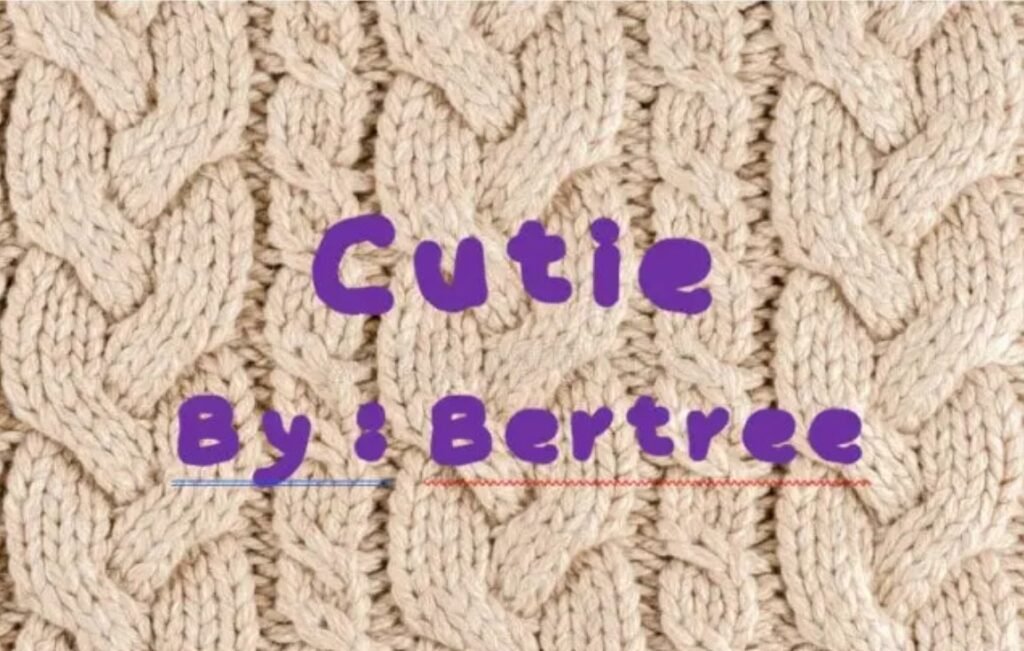
What is the Cutie Font?
The Cutie font, also known as cutie pie font, is a flowing script typeface with a relaxed look. It has a warm and friendly appeal because it tries to reproduce natural handwriting. It is most appropriate for projects meant to invoke a personal touch and warmth.
There are various offerings of the Cutie font, and each of them has its staunch supporters:
Cutie Patootie: Designed by Vanessa Bays, this version comes in three styles—Regular, Hollow, and Skinny—and all are great for different design applications.
Cutie by Bernadette Saiburju: It is a lovely handwritten script created for personal use that is ideal for enhancing the whimsical side of your designs.
Features of the Cutie Font
The Cutie Kitty font `s most liked features among designers are:
- Its design emulates natural handwriting, adding a personal touch that makes it feel as if someone wrote it by hand.
- With different versions like Regular, Hollow, and Skinny, you can opt for the Cutie Kitty font that best aligns with the tone and purpose of your project.
- From graphics design to print, the font is flexible and can be used in various applications.
- Language Support: Some versions of the Cutie font support multiple languages, enhancing their utility in diverse projects. ​
Applications of the Cutie Font
The Cutie patootie font is versatile and can be used across various design contexts:​
- Branding and Logos: Its friendly and approachable style makes it ideal for brands aiming to establish a personal connection with their audience.​
- Invitations and Greeting Cards: Perfect for adding a heartfelt touch to wedding invitations, birthday cards, and other personal correspondence.​
- Social Media Graphics: Enhance your posts with a handwritten flair that captures attention and conveys authenticity.​
- Product Packaging: Use the Cutie font to create packaging that feels bespoke and engaging.​
- Blog and Website Design: Incorporate the font into your digital platforms to add a unique and personal touch to your content.​
Conclusion:Cutie Font
As hand written fonts go, Cutie star brings a certain level of warmth and personality to every design work which makes it one of a kind. From crafting emotional invitations and social media posts to an entire branding package, this cutie star font will compliment all and appeal to the audience without fail.